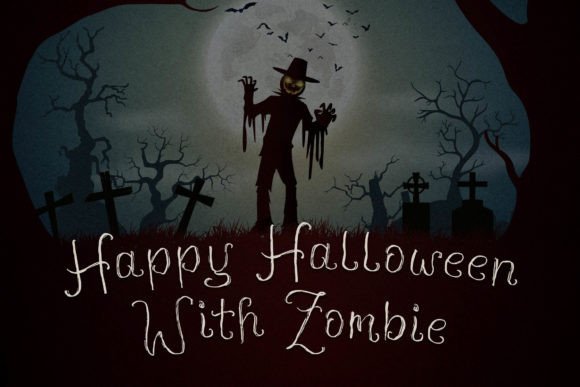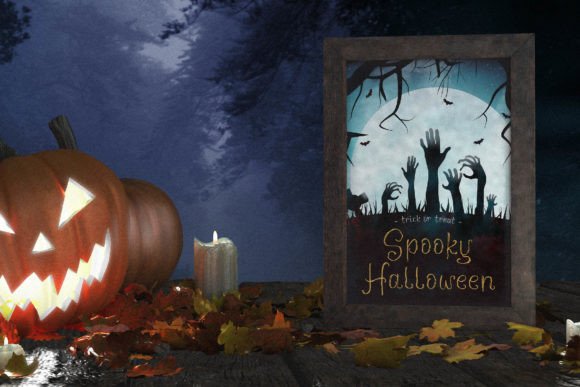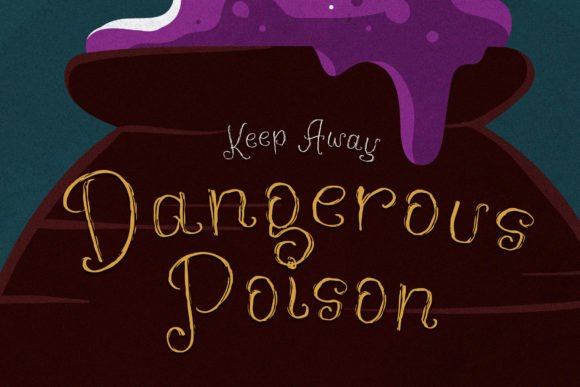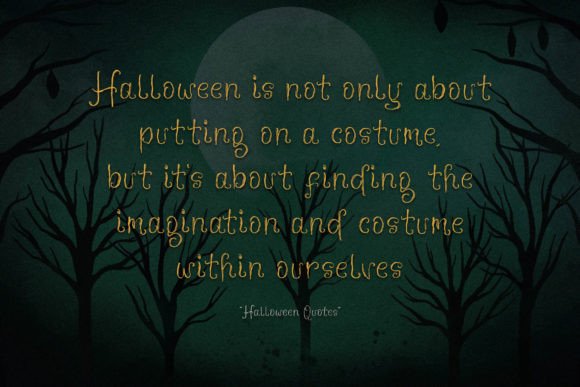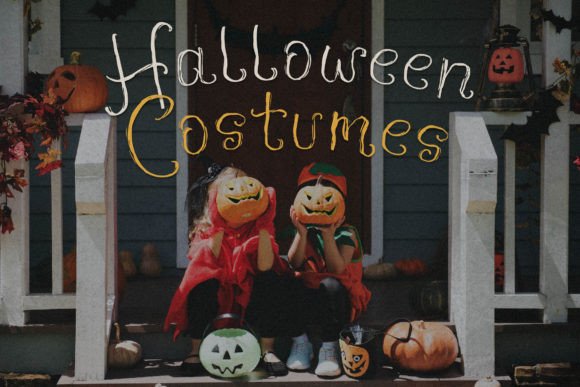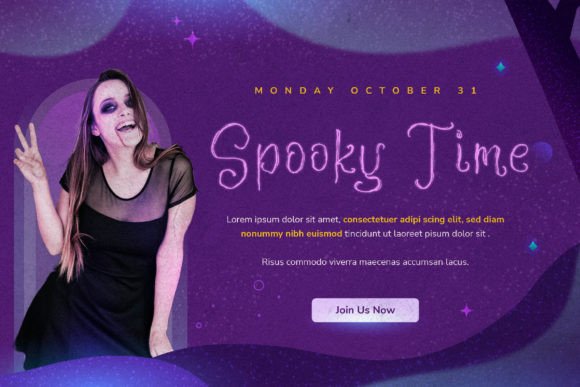
Introduction to Romantyc Goblins Font
Romantyc Goblins – Halloween script font suitable for any projects such as logos, branding projects, homeware designs, product packaging, mugs, quotes, posters, shopping bags, t-shirts, book covers, name cards, invitation cards, greeting cards, labels, photography, watermark, special events, and all your other lovely projects that need a beautiful script taste.
Key Features of Romantyc Goblins Font
Why Choose Romantyc Goblins Font?
Romantyc Goblins Font offers exceptional quality and versatility, making it a valuable addition to your design toolkit. Whether you’re creating for personal projects or commercial use, Romantyc Goblins Font delivers professional results.